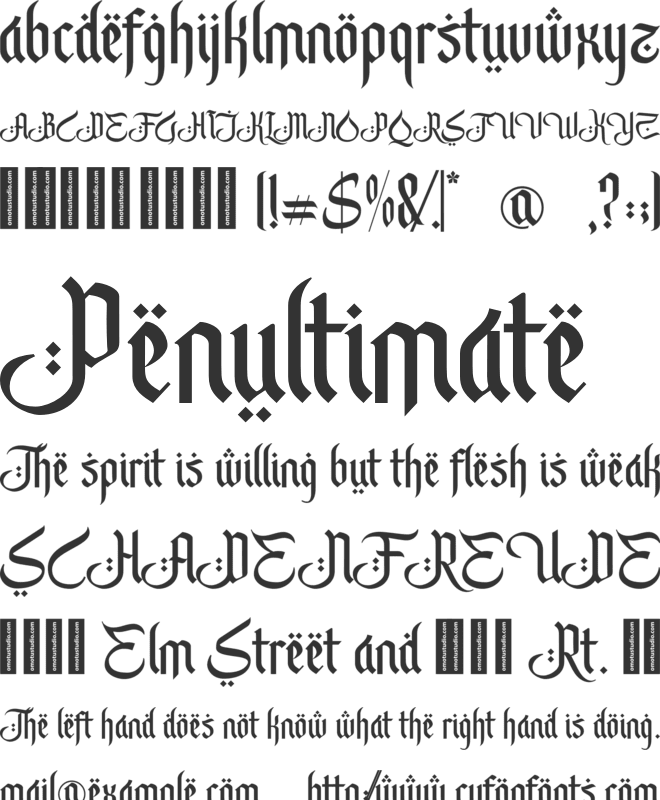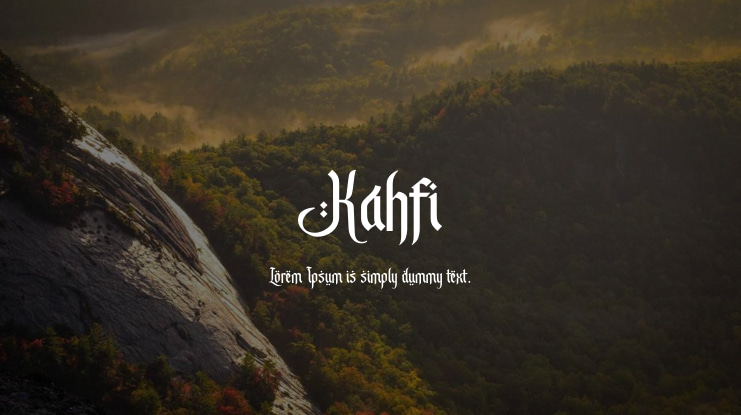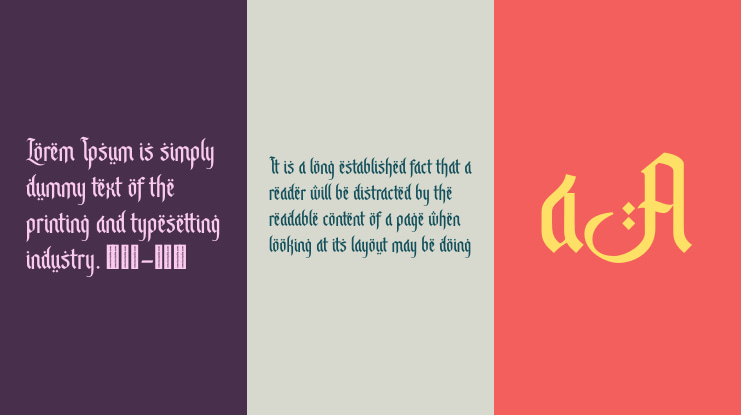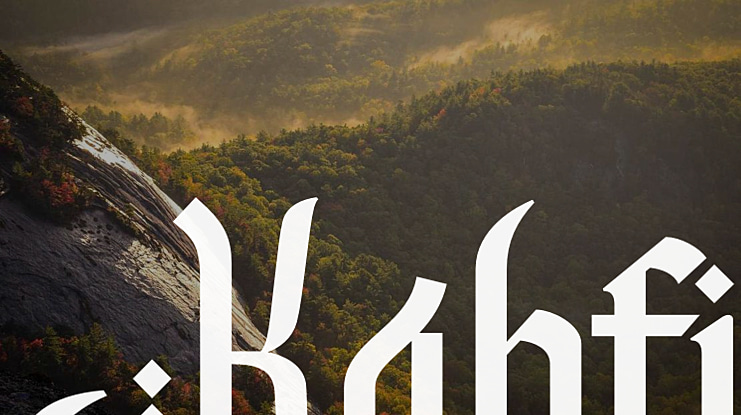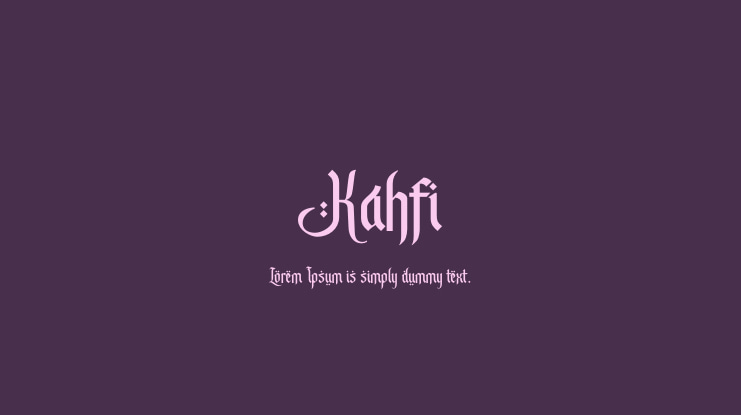
Kahfi Font
Kahfi is a stylish Arabic font that features beautifully designed Arabic characters. It is very suitable for designing various graphics related to Islamic content. Whether you need it for branding, logo types, apparel, product packaging, quotes, flyers, posters, book covers, or advertisements, Kahfi font has got you covered.